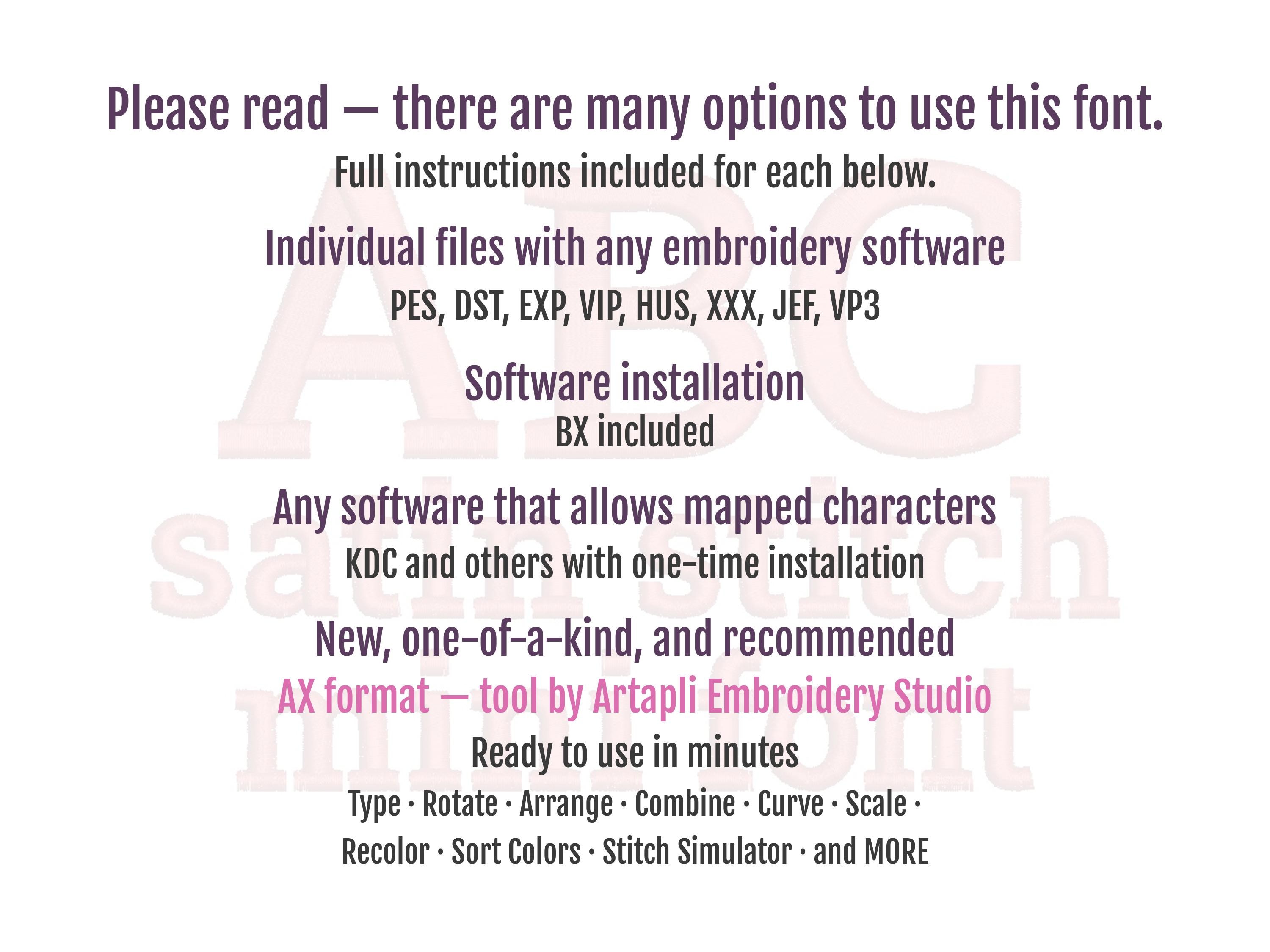
Mini Block FONT satin stitch alphabet uppercase and lowercase monogram machine embroidery designs small mini sizes 0.5 up to 1.8 inches
Uppercase and lowercase letters, numbers and punctuation.
Very nice font to work with
Font stitched out nice and clean.
Great font. Exactly what I was looking for.